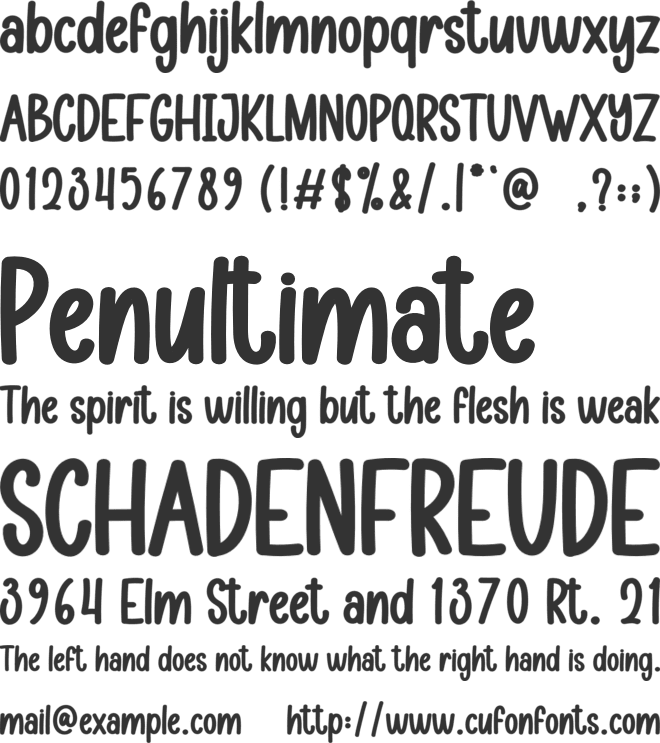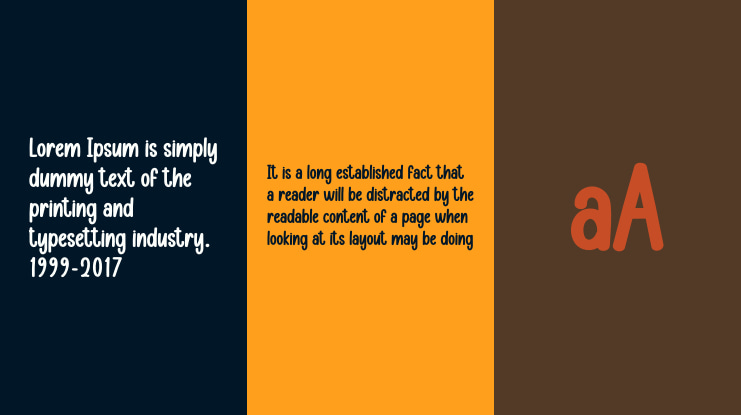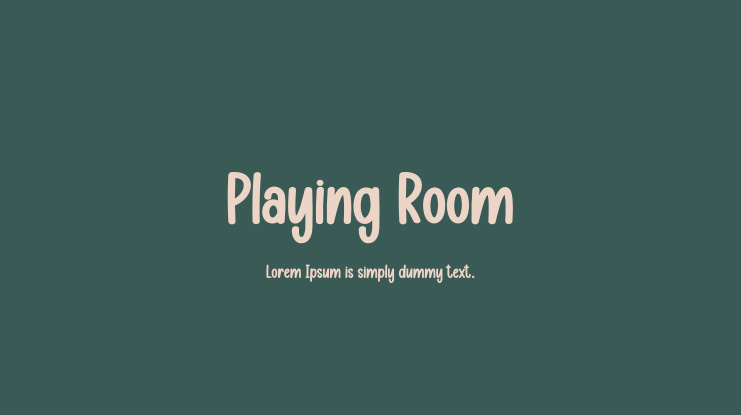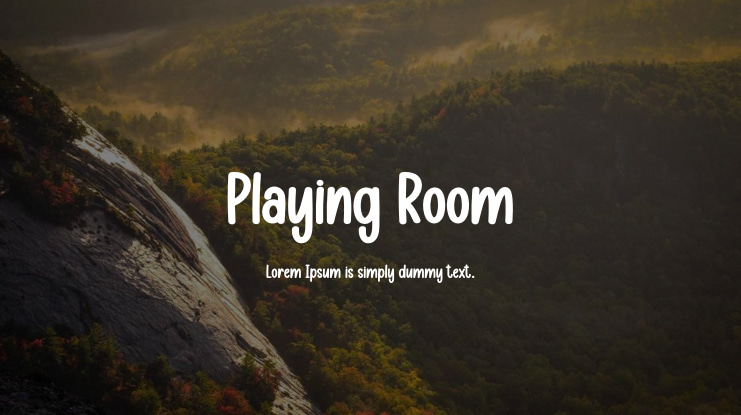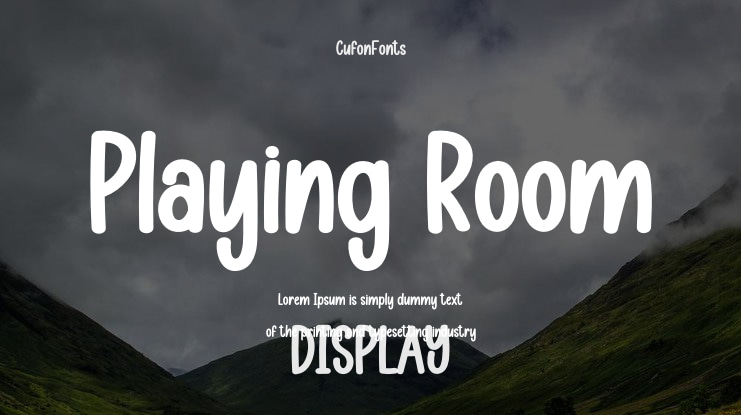
Our latest style letters are ideal for wall displays, wedding invitations, social media posts, logos, advertisements, product packaging, product designs, labels, photography, watermarks, invitations, stationery, and any project requiring a tasteful handwritten touch.